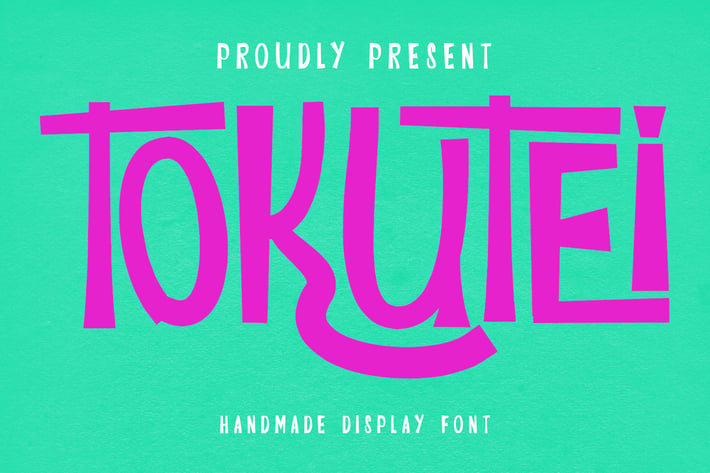
Tokutei Display Font
Tokutei is a cute display font. With fun character with a bit of ligatures and alternates. To give you an extra creative work. Tokutei font support multilingual language. This font is good for logo design, Social media, Movie Titles, Books Titles, a short text even a long text letter and good for your secondary text font with sans or serif. Make a stunning work with Tokutei font.